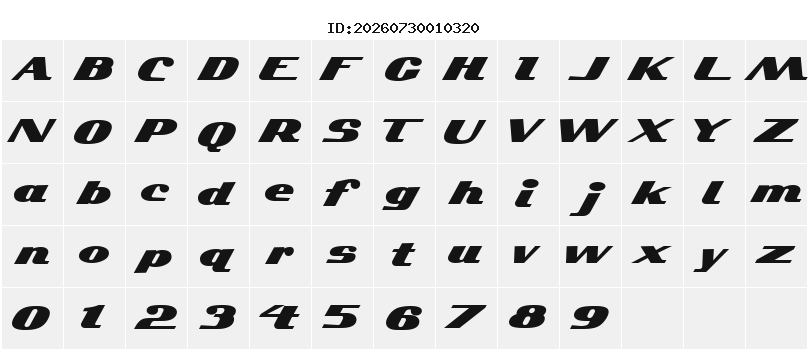
Kelvinized Preview
About Kelvinized.ttf
Kelvinized.ttf is a modern, elegant sans-serif font designed for ultimate readability and visual harmony. Perfect for branding, headlines, web design, and print materials.